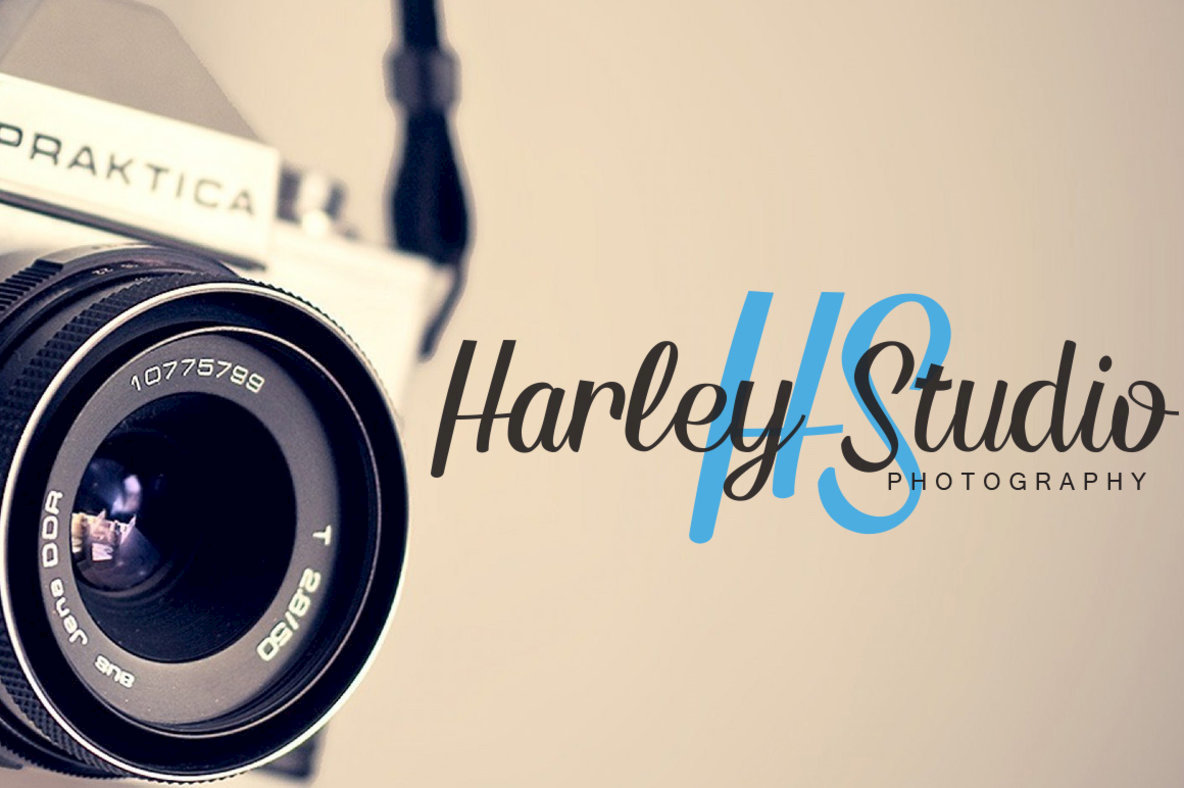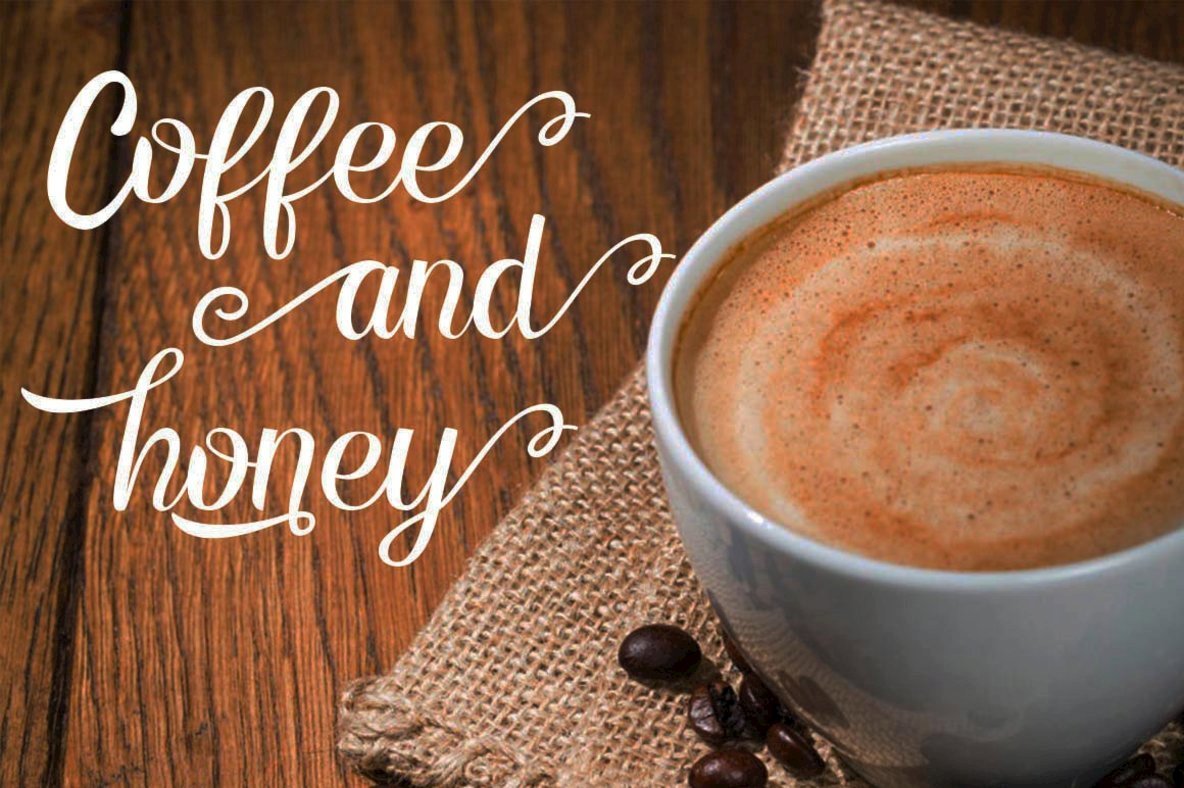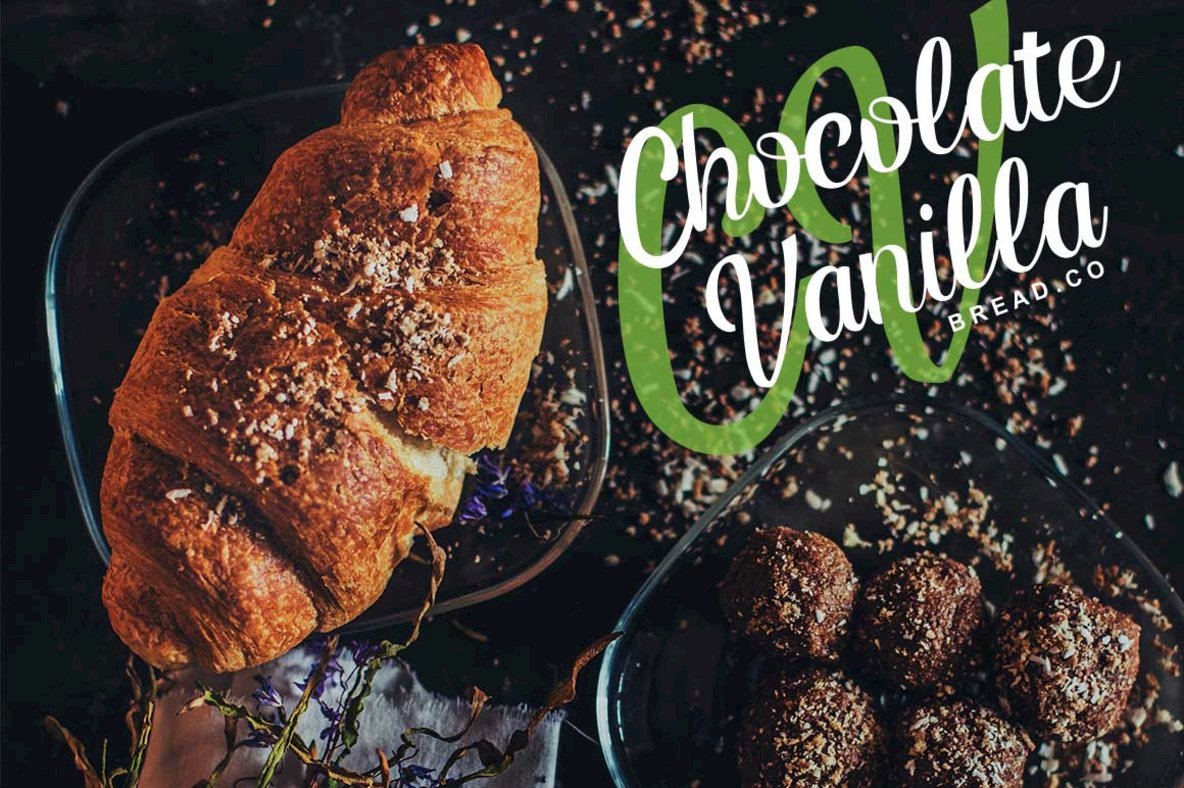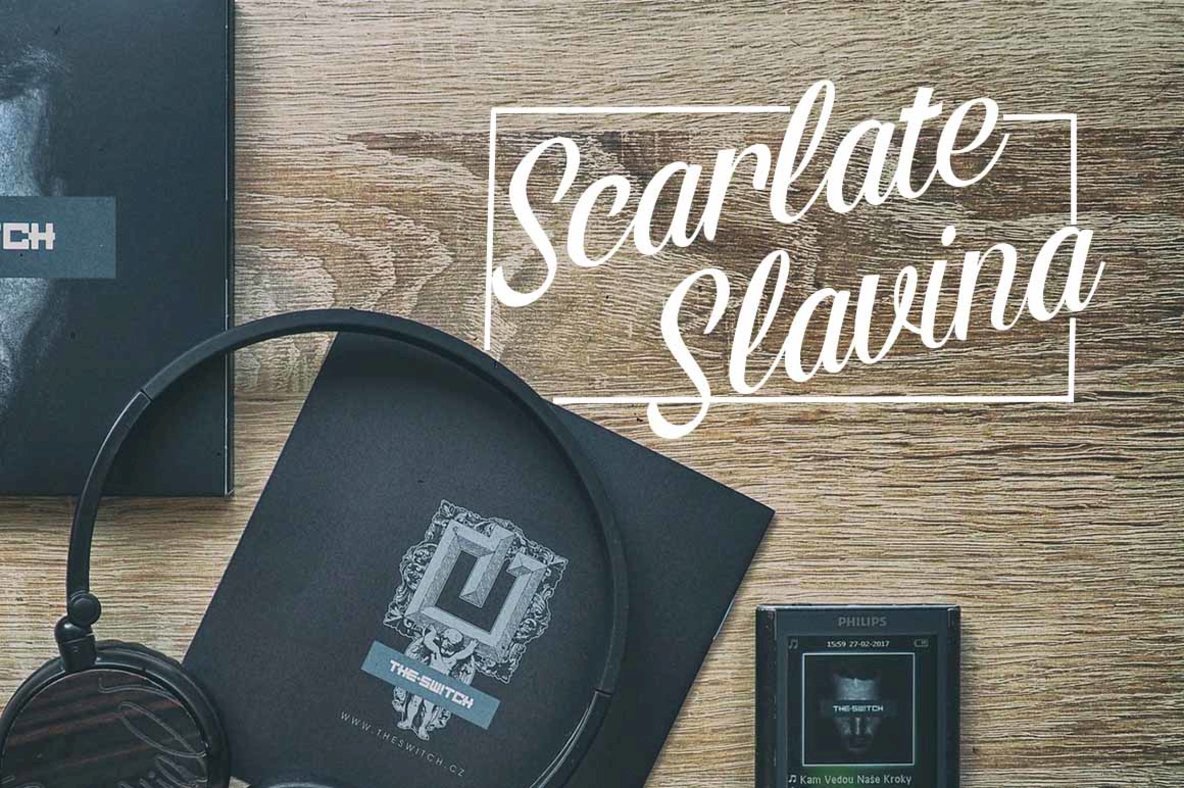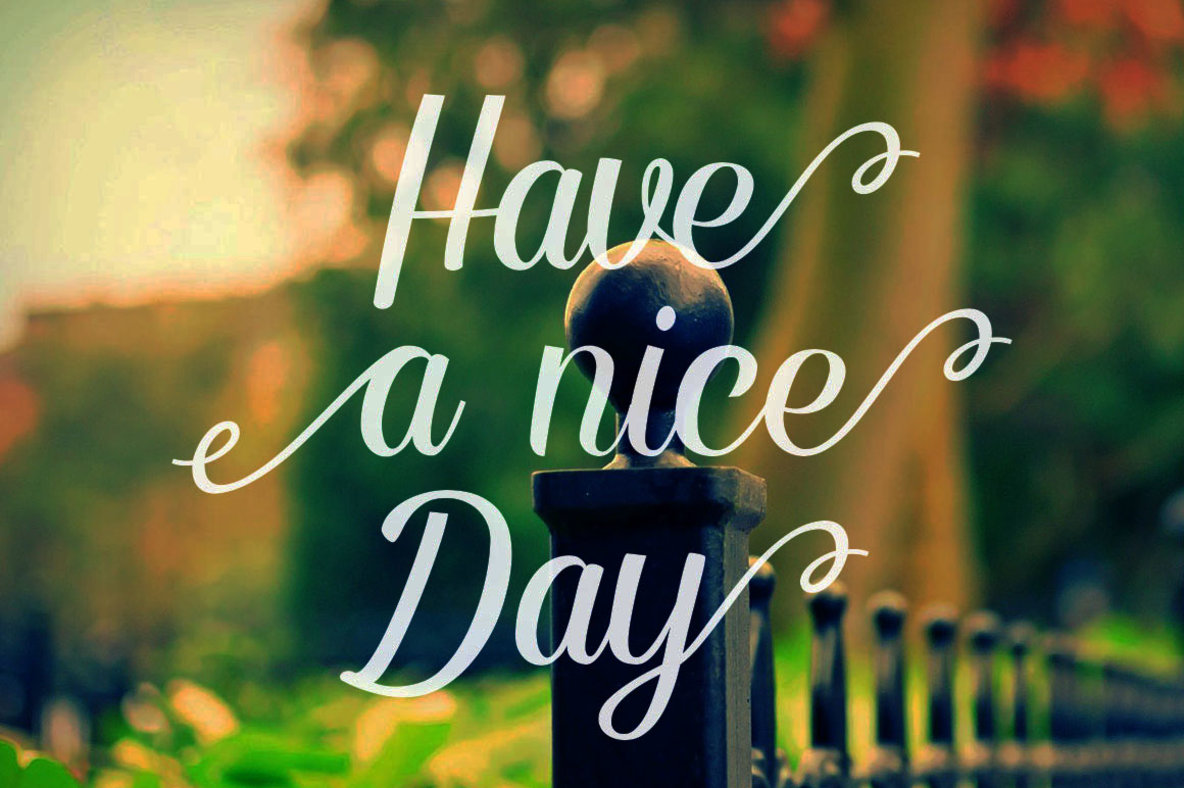
Alpenable Font
Alpenable
Alpenable brings together the elegance of classic calligraphy with a fresh modern style, making it a versatile choice for various projects. Perfect for greeting cards, branding materials, business cards, quotes, and posters, this typeface offers a timeless appeal for any design.Alpenable: Modern Calligraphy with a Classic Twist